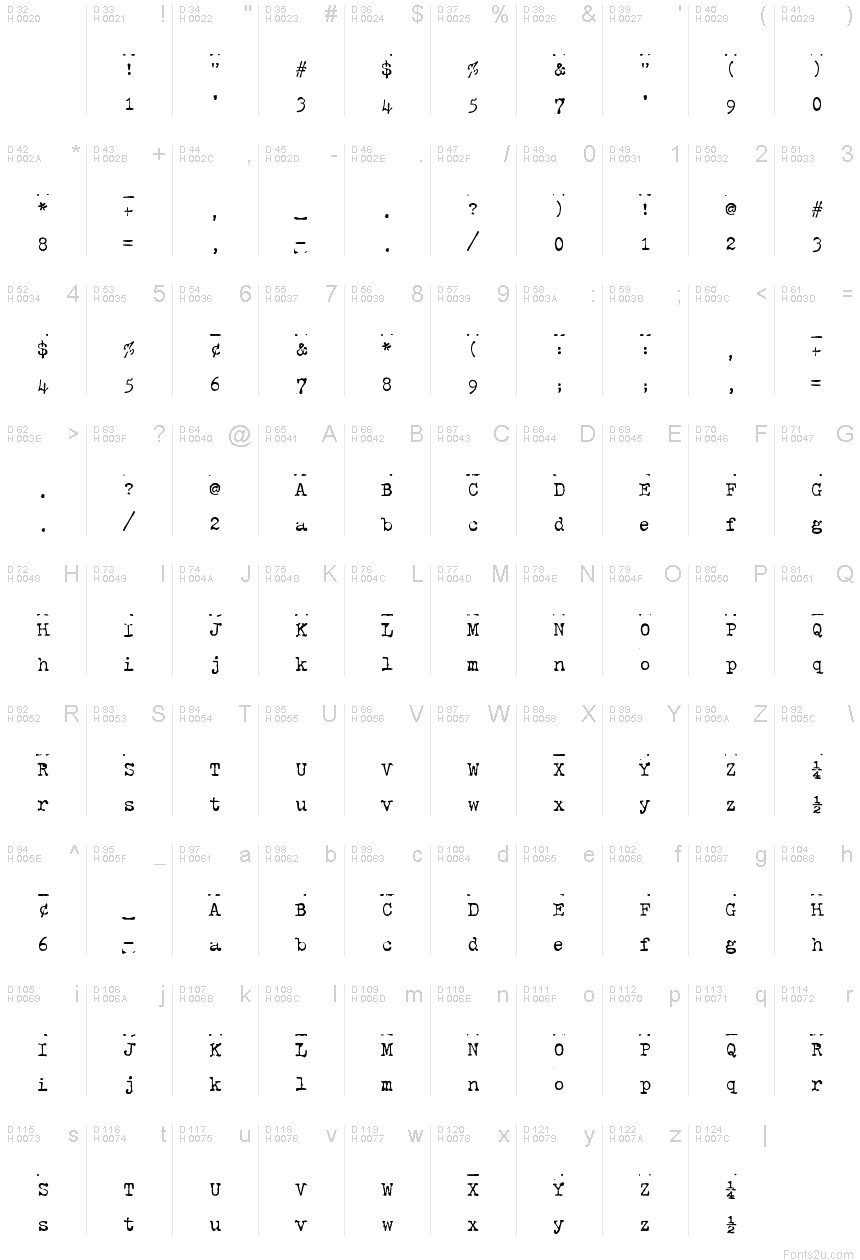
HammerKeys
Hammer Keys font by Matt Lyon is a free distressed typewriter display font. Each letter looks like it’s been hammered into paper with an old metal key-inky edges, slight misalignment, and broken outlines that feel tactile and real instead of digital and neat. The spacing has a loose, irregular rhythm that instantly adds age, grit, and narrative weight to even a single word.
Using Hammer Keys, you can give zines, book covers, mystery posters, album art, social graphics, and vintage-flavored branding an authentically worn, analog voice. This free font shines when used big for headlines or short phrases; let it carry the mood, then pair it with a clean sans-serif for supporting text so the rough texture really stands out.